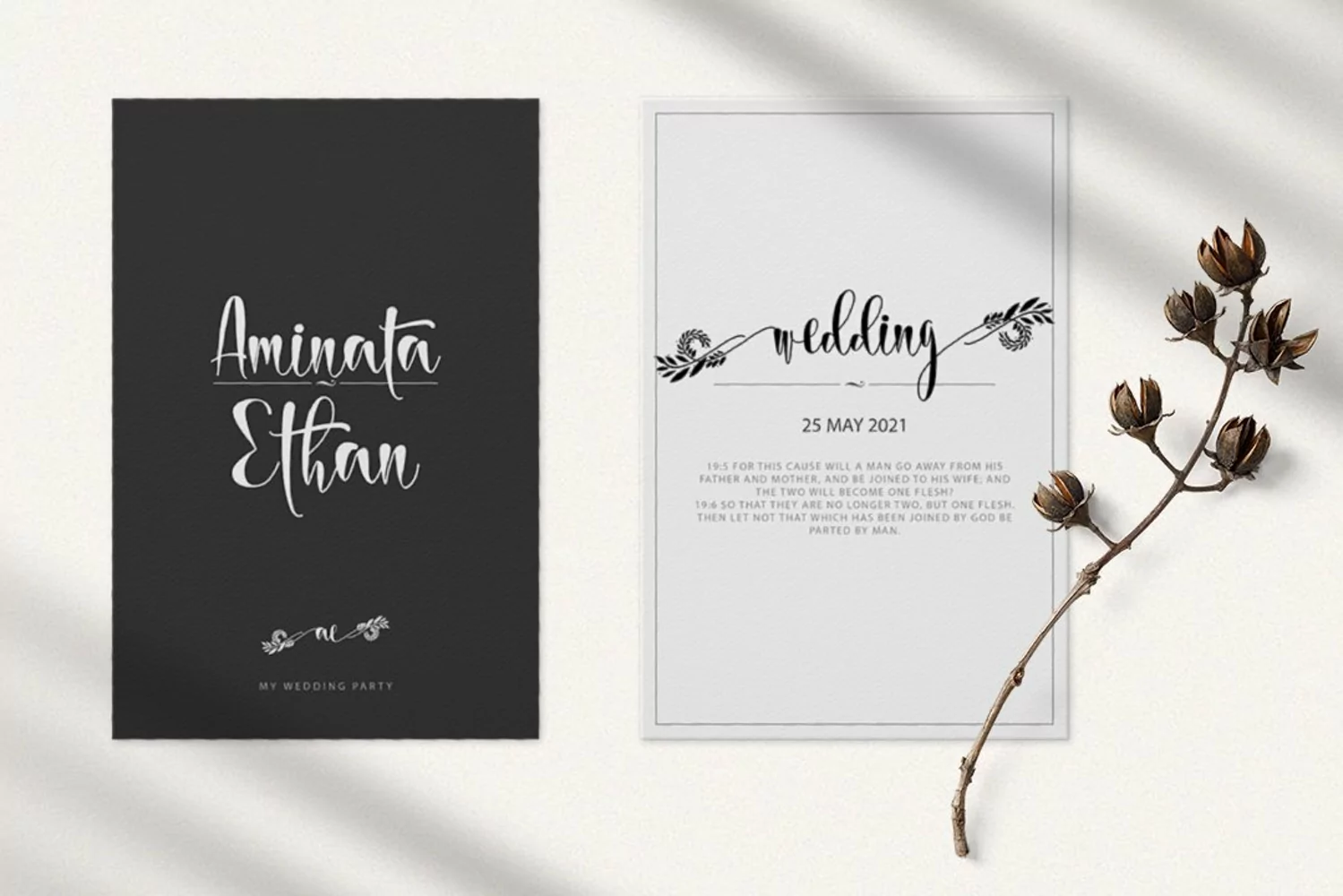
Springleaf is a refined and delicate handwritten font. This lovely script font has a wide spectrum of applications ranging from greeting cards to headlines and is guaranteed to add a romantic feel to your next project. It will turn any design project into a true stand-out. Add it to your most creative ideas and notice how it makes them come alive!
This font is PUA encoded which means you can access all of the amazing glyphs and swashes with ease! It also features a wealth of special features including alternate glyphs, swashes, and ligatures.